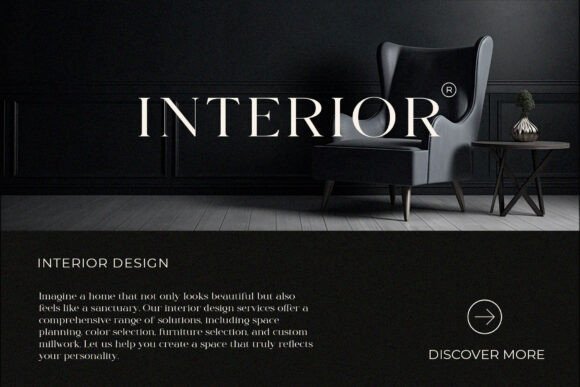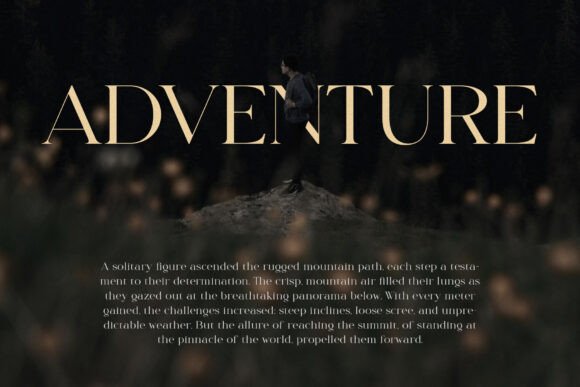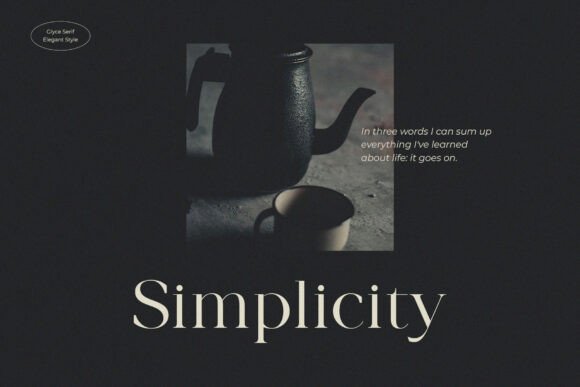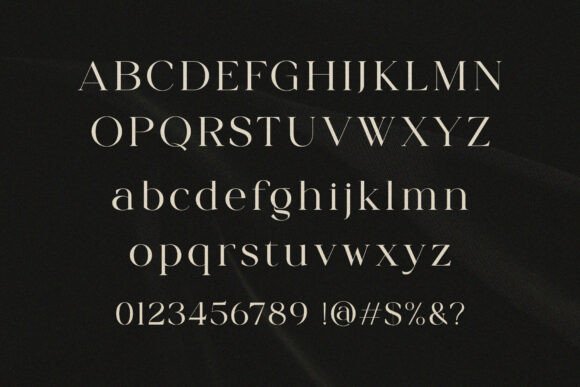
Introducing Glyce Elegant Serif Font: Elevate Your Designs with Modern Class
In the realm of typography, a font can make or break a design. For those seeking a modern, classy, and elegant touch, look no further than the Glyce Font. This stunning serif typeface is meticulously crafted to bring an extra layer of sophistication to any project, making it perfect for display headings, logos, branding, magazines, product packaging, and invitations.
The Glyce Advantage: Clean Lines and Smooth Curves
What sets Glyce apart is its masterful blend of clean lines and smooth curves. This harmonious balance gives Glyce its distinctive elegance, allowing it to breathe new life into any design. Whether you’re working on a luxury brand’s logo, a high-end product’s packaging, or the cover of a sophisticated magazine, Glyce ensures that your project exudes class and refinement.
Glyce is not just limited to one type of project. Its versatility is one of its most compelling features. Here are some of the many ways you can utilize Glyce Font:
- Display Headings: Make a bold statement with Glyce as your go-to font for headings. Its elegant serifs and modern vibe ensure your titles grab attention.
- Logos and Branding: Establish your brand’s identity with a sophisticated look. Glyce can help convey luxury, tradition, or innovation, depending on your brand’s ethos.
- Magazines and Publications: Give your magazine or publication a classy look that stands out on newsstands or digital platforms.
- Product Packaging: Elevate your product’s presentation with packaging that exudes elegance and quality.
- Invitations: Whether it’s a wedding, a formal gala, or a corporate event, Glyce can add that extra touch of sophistication to your invitations.
Why Choose Glyce Font?
Choosing Glyce Font for your next project comes with numerous benefits:
- Unique Aesthetic: Glyce offers a unique blend of modernity and classic elegance, making your designs memorable.
- High Readability: Despite its elegant design, Glyce maintains high readability, even at smaller sizes, making it versatile for various applications.
- Time-Saving: With Glyce, you don’t have to spend hours designing a custom typeface. You get a professionally crafted font that saves you time and resources.
- Support for Multiple Languages: Glyce comes with support for multiple languages, making it a great choice for global brands or projects with an international audience.
How to Use Glyce Font Effectively
To make the most out of Glyce, consider the following tips:
- Pair it Wisely: When pairing Glyce with another font, choose something that complements its elegance. A simple sans-serif font for body text can create a beautiful contrast.
- Adjust Letter Spacing: For headings, slightly increasing letter spacing can enhance Glyce’s elegant appearance.
- Experiment with Colors: While Glyce looks stunning in black and white, don’t be afraid to experiment with colors that match your brand’s palette or the mood of your project.
Glyce Elegant Serif Font is more than just a typeface; it’s a design statement. With its perfect blend of modern class and timeless elegance, Glyce has the power to transform your designs, making them stand out in any medium. Whether you’re a professional designer or a DIY enthusiast, Glyce offers a straightforward path to elevating your projects. So, why settle for ordinary when you can make your designs extraordinary with Glyce?